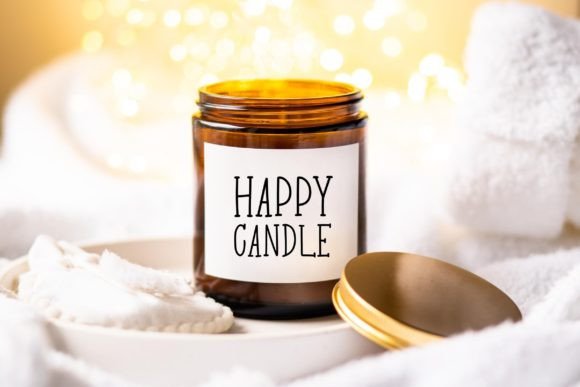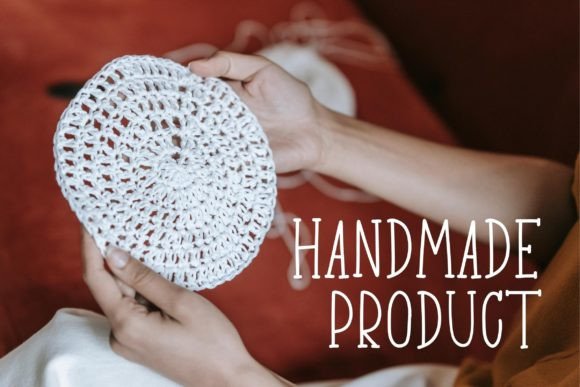
Heart Made Font
Introducing “HEART MADE” the friendly farmhouse serif font that infuses a crafty and welcoming feeling into your designs. This font is perfect for a variety of applications, including craft packaging, digital notes, tags, merchandise, and more. With its friendly serifs and versatile charm, “HEART MADE” adds a touch of warmth and craftsmanship to your projects, making it an ideal choice for those seeking a blend of friendliness and rural charm.